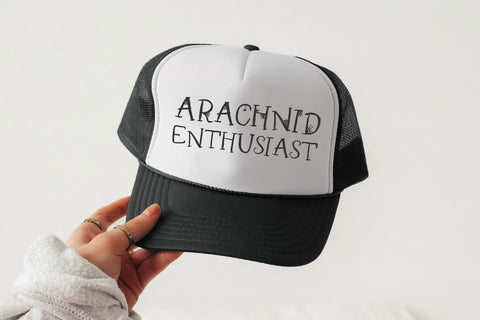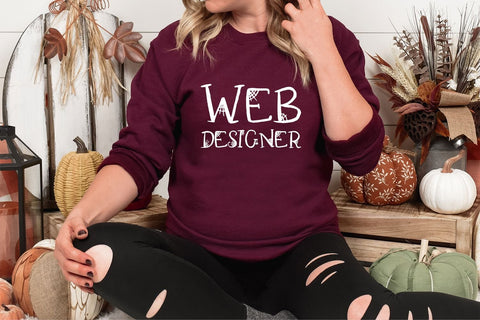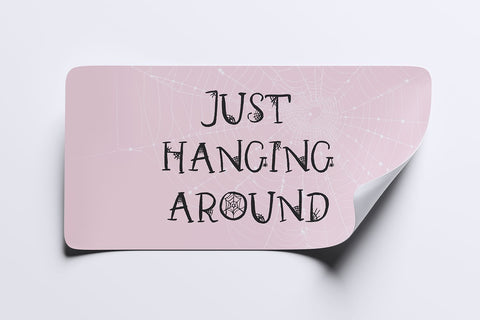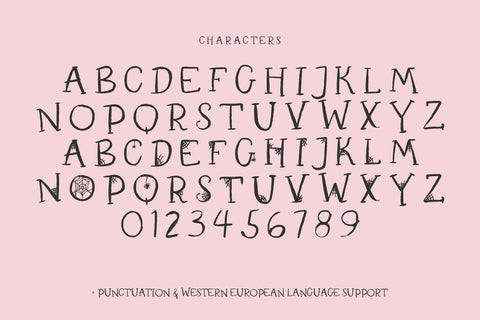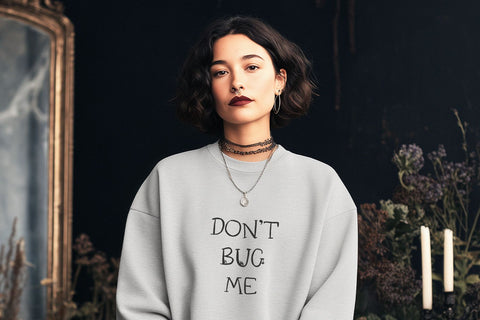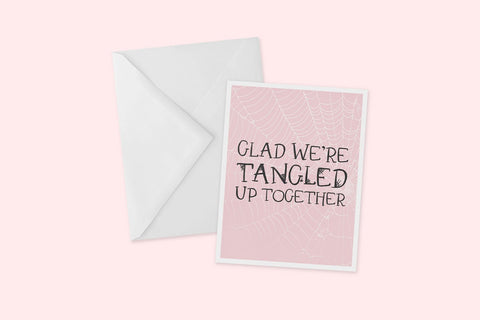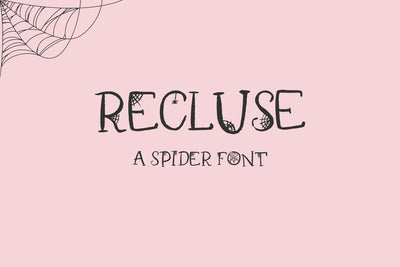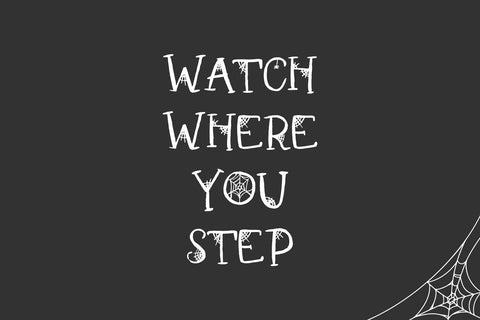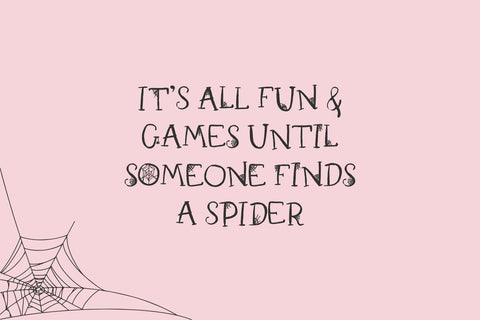
Recluse Spider Display Font
Recluse is an all caps sans font, but be careful - the characters programmed into the lowercase slots have spider webs and creepy crawly spiders. Use Recluse in all caps, all lowercase, or mixed case to decide exactly how much ick you want in your design. Recluse is lightly textured, but lettered in a style that makes it look extra creepy and slightly weathered. It’s a great horror-themed font. Use for creepy shirts, signs, haunted house decor or invitations, stickers, and more.
- full upper + lowercase characters
- numbers + punctuation